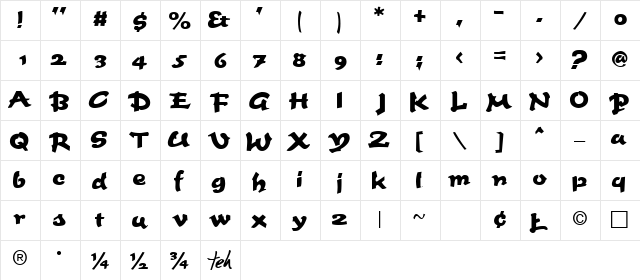
Fettash Normal
Design Context for Fettash Typeface
Fettash is a composed and adaptable typeface that performs quietly and consistently across a wide range of design contexts.